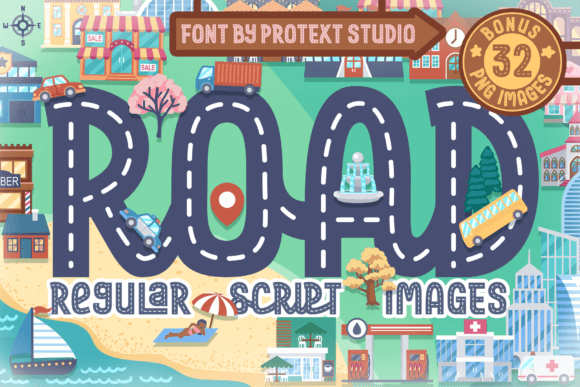
Introducing Road Font, the ultimate choice for adding a delightful and captivating touch to your design projects. Created by the talented team at Protext Studio, this cute and friendly display font is a must-have for every creative individual looking to elevate their work to new heights.
With its rounded letters and whimsical personality, Road Font instantly injects playfulness and charm into any text. Whether you're designing a website logo, crafting catchy headlines, or working on other creative projects, this font is your perfect companion. It's like a breath of fresh air that brings a smile to everyone's face.
When it comes to versatility, Road Font shines like no other. It effortlessly adapts to various design elements, effortlessly blending into any style or concept you have in mind. Its soft and approachable style is perfect for creating a welcoming and friendly atmosphere, making your content more appealing to your audience.
But what sets Road Font apart from the rest? It's not just about its eye-catching aesthetics and friendly demeanor. This font is meticulously crafted to ensure excellent legibility, even at smaller sizes. Your message will never get lost in the shuffle, as Road Font makes sure your words are heard loud and clear.
Step into a world of endless creativity with Road Font. Imagine your website logo instantly grabbing attention and leaving a lasting impression. Picture your headlines standing out among the clutter, effortlessly captivating your readers. With Road Font, the possibilities are limitless.
Don't just take our word for it. Join the countless designers and creatives who have already embraced Road Font as their go-to choice for adding that extra touch of magic to their projects. Unleash your imagination, and let Road Font be your trusty companion on your creative journey.